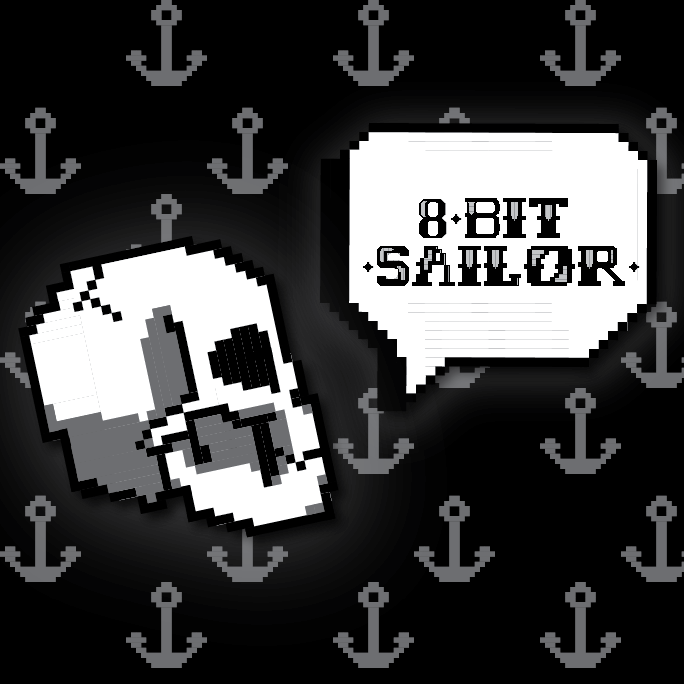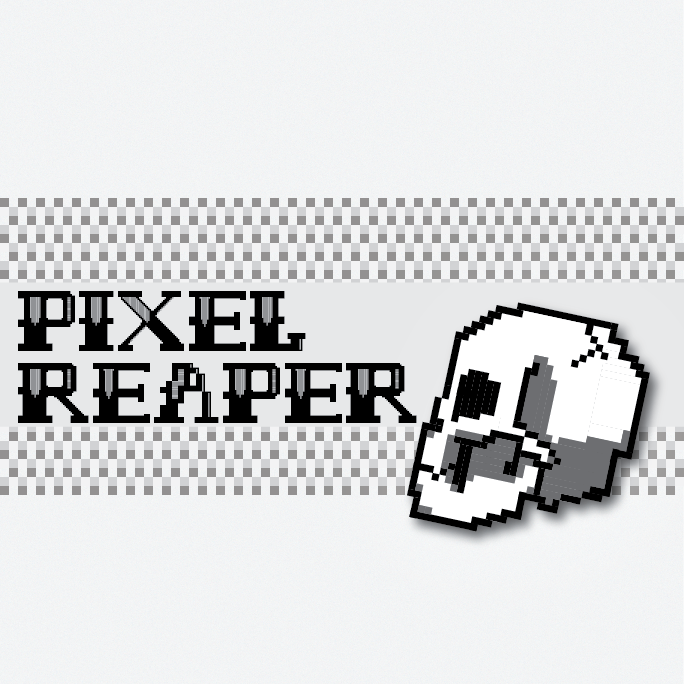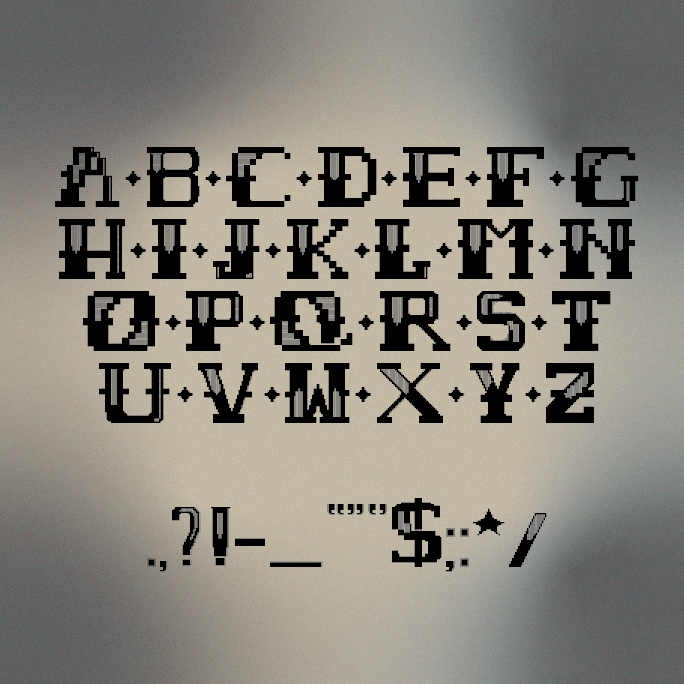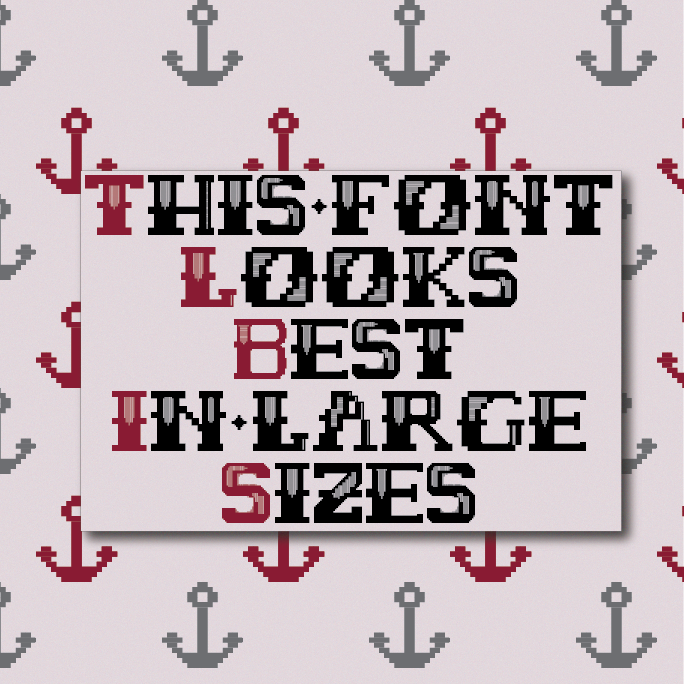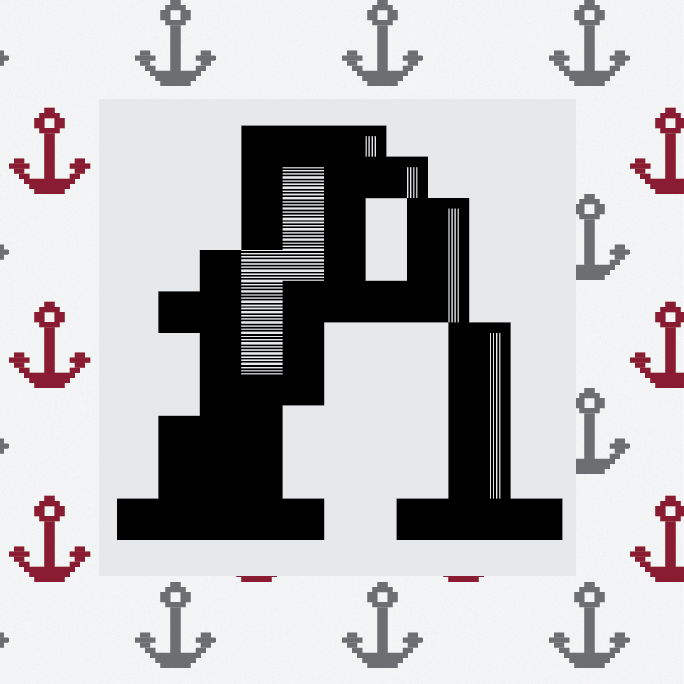
• This font is a bold, pixilated typeface. Inspired by classic 8-bit aesthetics combined with traditional tattoo lettering. Perfect for gaming titles, branding, posters and digital artwork. 8bit Sailor stands out in larger sizes, making it great for attention grabbing headlines and logos!